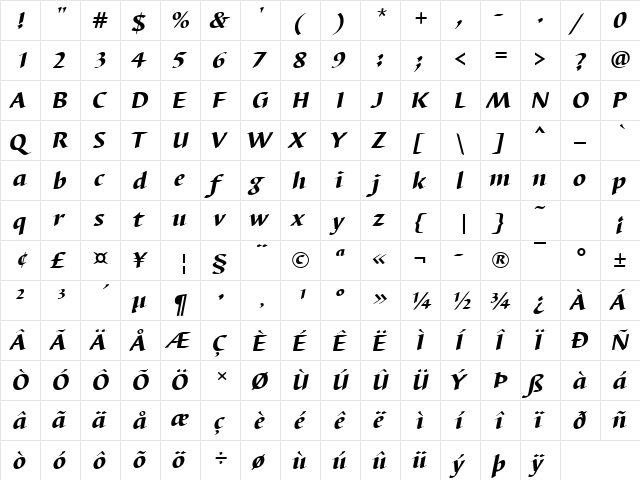
BarbedorTHea Italic
Design Context for BarbedorTHea Typeface
BarbedorTHea is a composed and adaptable typeface that performs quietly and consistently across a wide range of design contexts. The dynamic lean of this cut emphasises speed and emphasis in any layout.
Pro Tip: Try BarbedorTHea for annotation and caption copy alongside an upright companion — the contrast in angle creates a dynamic but ordered typographic system.